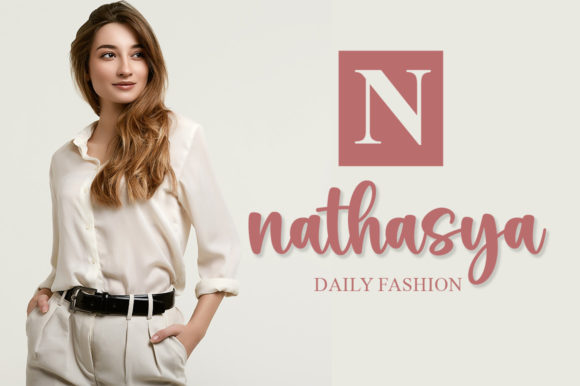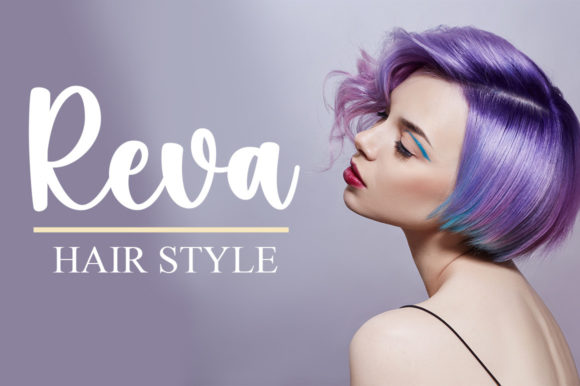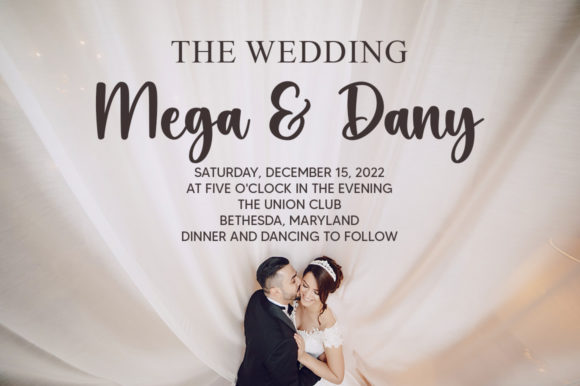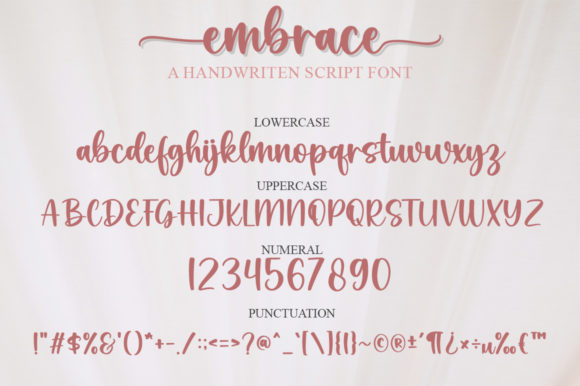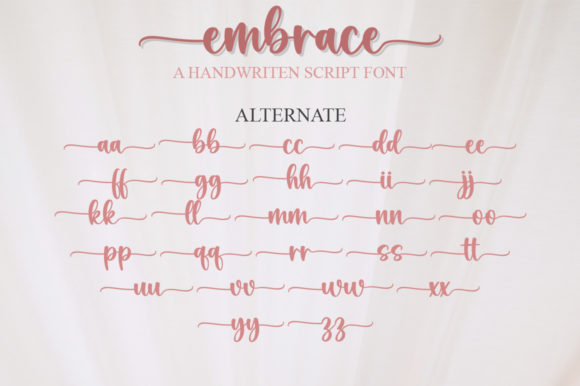
Introducing Embrace Font: Elevate Your Designs with Elegance and Sophistication
In the world of typography, a font can make or break the aesthetic of a design project. For designers and crafters seeking to infuse their work with a touch of sophistication and elegance, Embrace Font is an exceptional choice. This delicate and refined script font is meticulously crafted to bring a level of refinement and luxury to any project it adorns.
The Essence of Embrace Font
Embrace Font is not just any script font; it’s a symphony of stylish alternates and ligatures that come together to create a truly unique and eye-catching visual experience. Its design is centered around providing a fluid, connected feel that can add a personal touch to a wide range of projects, from wedding invitations and branding materials to packaging and digital content.
Key Features of Embrace Font
- PUA Encoding: Embrace Font is PUA (Private Use Area) encoded, which means it offers an extensive range of glyphs and swashes that are easily accessible. This feature allows designers to have unparalleled control over the typography, enabling them to craft bespoke designs with ease.
- Stylish Alternates and Ligatures: One of the standout features of Embrace Font is its comprehensive set of stylish alternates and ligatures. These elements allow designers to add a layer of complexity and beauty to their work, making each piece truly stand out.
- Elegance and Versatility: Embrace Font strikes the perfect balance between elegance and versatility. Whether you’re working on a high-end brand campaign, a luxury product packaging, or a bespoke wedding invitation, this font adapts seamlessly to fit the project’s needs.
Applications of Embrace Font
The versatility of Embrace Font makes it suitable for a myriad of design applications. Here are a few areas where this font truly shines:
- Wedding and Event Design: From invitations to thank you cards, Embrace Font adds a romantic and sophisticated touch to any wedding or event-related design.
- Branding and Logo Design: For businesses aiming to convey luxury, elegance, and professionalism, Embrace Font can be a valuable asset in creating a distinctive brand identity.
- Packaging Design: When it comes to luxury product packaging, the font used can significantly impact the perceived value of the product. Embrace Font, with its refined and elegant appearance, is perfect for high-end product packaging.
- Digital Content: In the digital realm, Embrace Font can elevate blog headers, social media graphics, and website content, making it an excellent choice for bloggers, influencers, and digital marketers.
Tips for Using Embrace Font Effectively
To make the most out of Embrace Font, consider the following tips:
- Pair it with Simplicity: Embrace Font’s intricate details and elegance shine best when paired with simpler design elements. This contrast ensures that the font remains the focal point without overwhelming the viewer.
- Experiment with Swashes: Take full advantage of the font’s PUA encoding by experimenting with different swashes and glyphs. This can add a unique touch to your designs and make them more engaging.
- Consider Hierarchy: When using Embrace Font in lengthy texts or in combination with other fonts, pay attention to hierarchy. Use size, color, and weight to guide the reader’s eye through the content smoothly.
Embrace Font is more than just a script font; it’s a tool for designers and crafters to add a touch of sophistication and elegance to their work. With its stylish alternates, ligatures, and PUA encoding, it offers endless possibilities for creative expression. Whether you’re working on a luxury brand campaign, a wedding invitation, or digital content, Embrace Font is sure to elevate your designs to new heights of elegance and refinement.